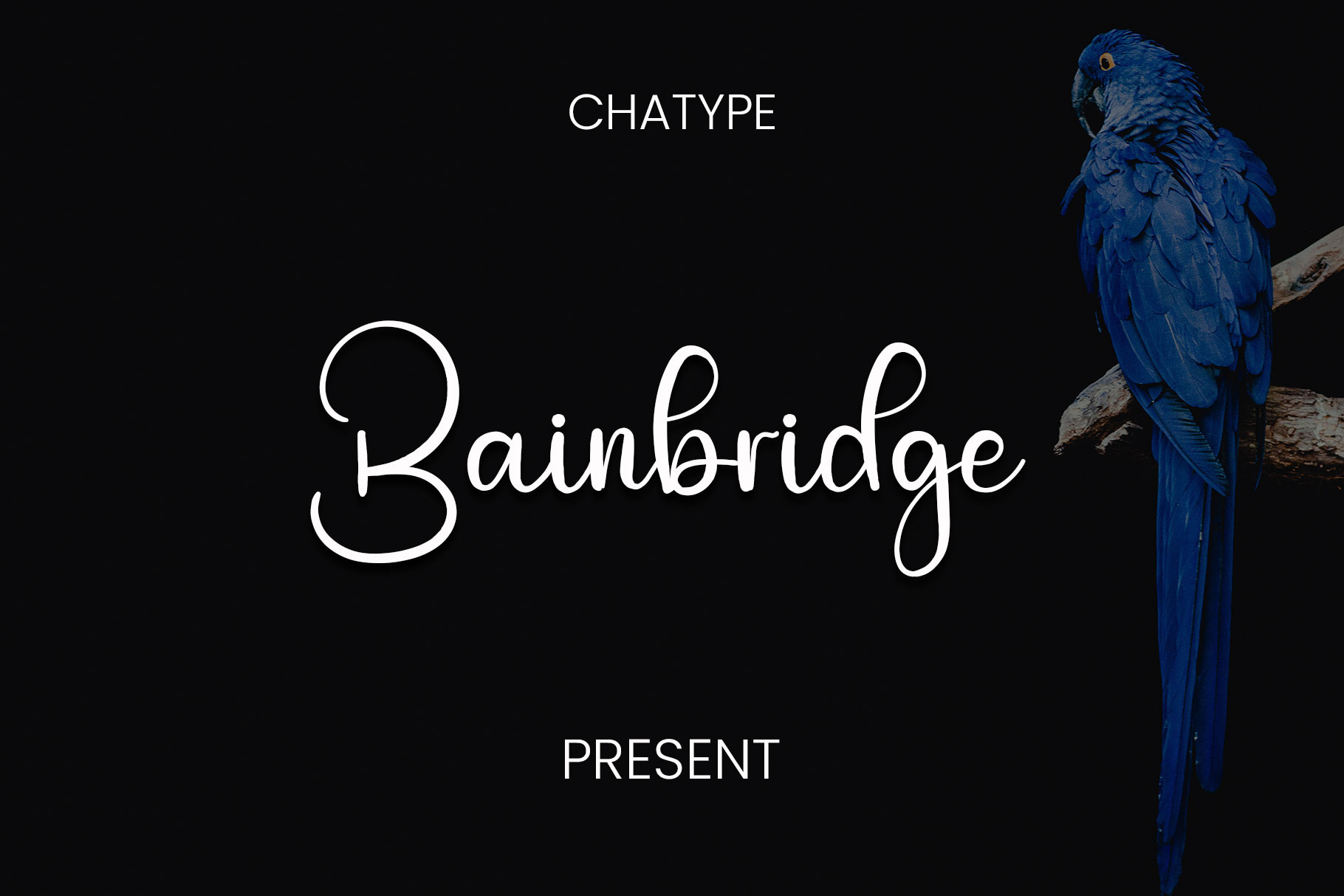
Bainbridge script font
Bainbridge font with new style, this font will perfect for many different project ex: quotes, logo, blog header, poster, banding, letter, invitation, stationery, etc.